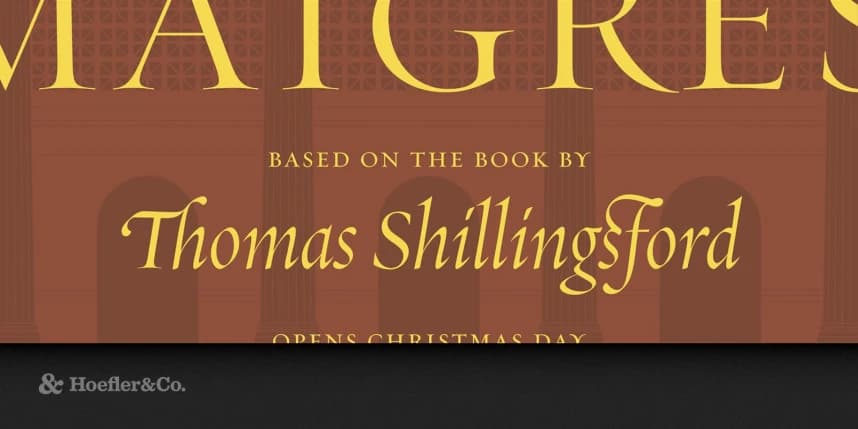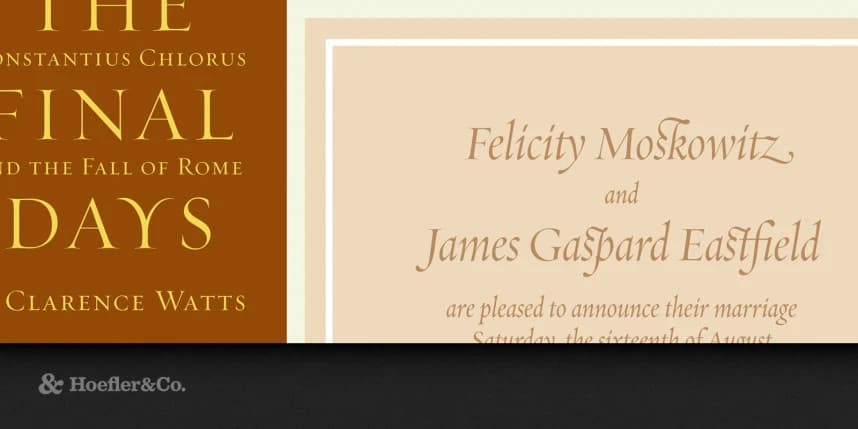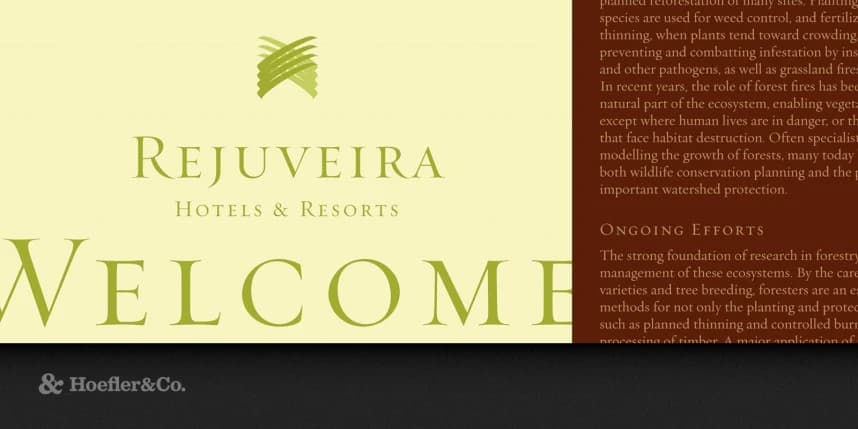
Requiem Font Family
Requiem Font Family, inspired by an illustration in a sixteenth-century writing manual, Requiem celebrates the fertile world of Renaissance humanism. The Requiem typeface was designed by Jonathan Hoefler in 1991. Rooted in the ‘humanist’ style of renaissance Venice